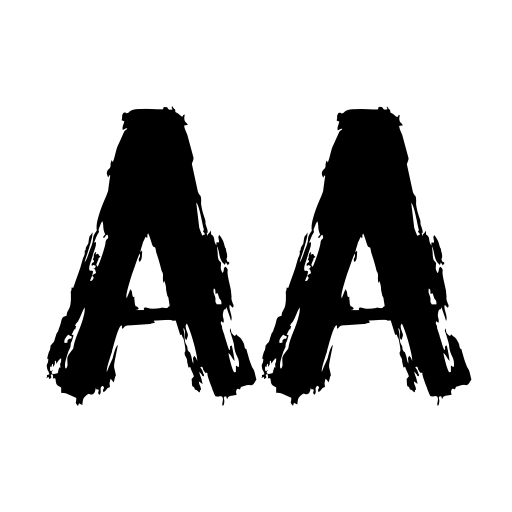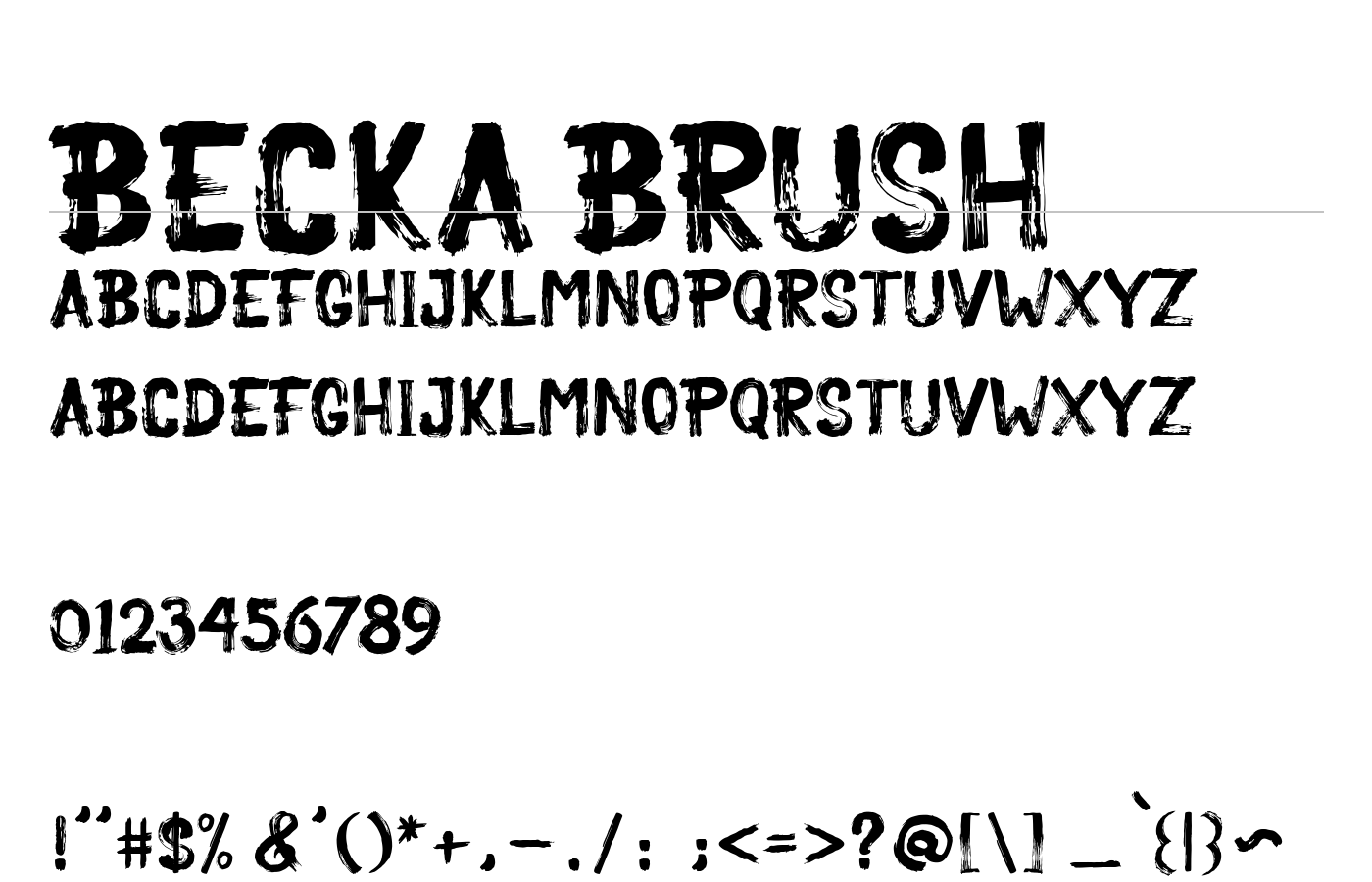
Becka Brush is a bold, textured sans serif font that mimics the rough, hand-painted strokes of a brush. Its irregular edges and distressed look give it an energetic and artistic feel, making it perfect for creative projects, posters, and branding that wants to convey a casual, handmade, or edgy vibe. This font works well for headlines and display use where a strong, dynamic impact is needed.
Becka Brush Font
About Becka Brush Font
| Font family | Becka Brush Font |
| Designer | Nasrullah |